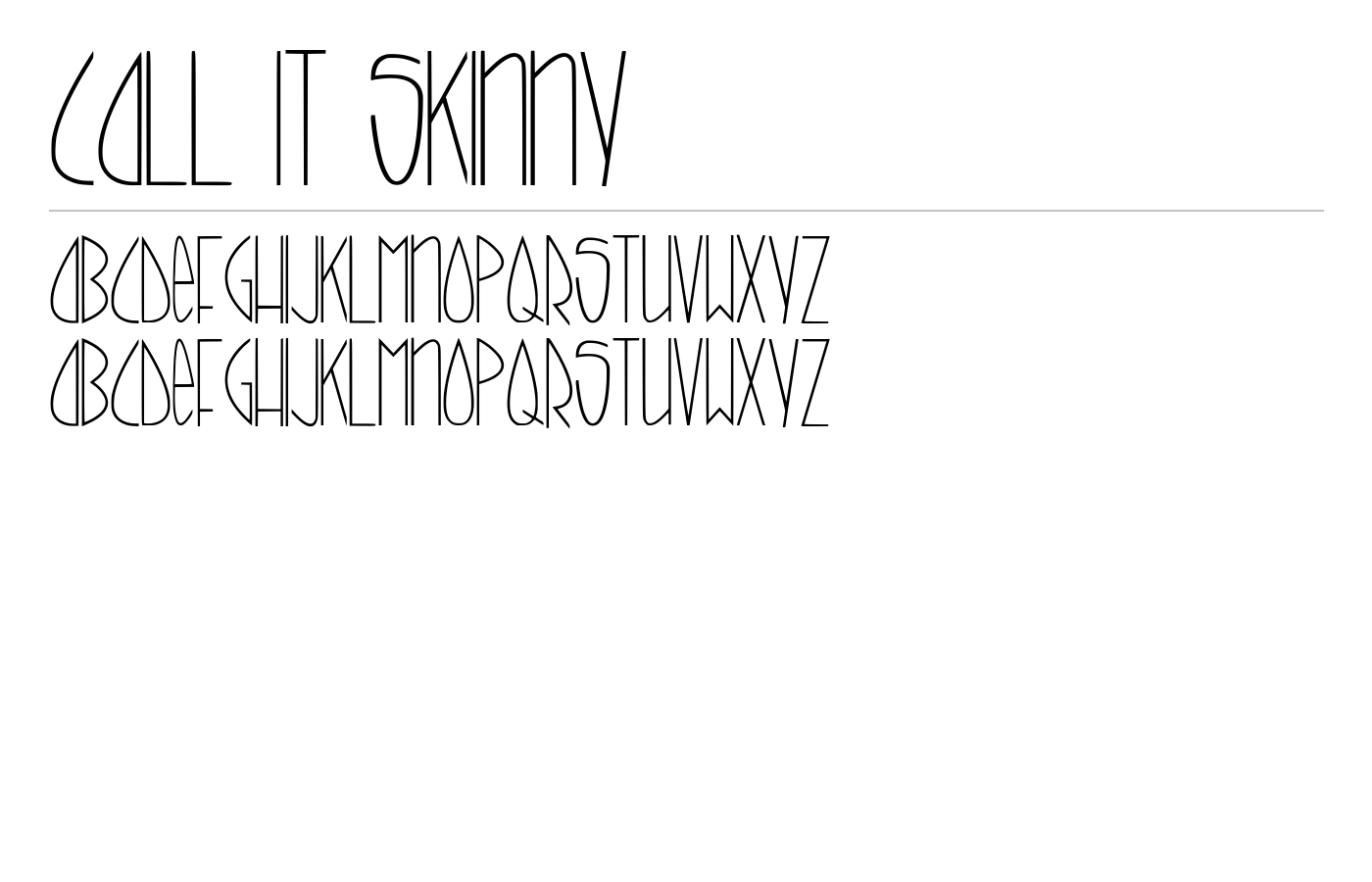
Call It Skinny is a tall, narrow sans serif font with delicate, uniform strokes that create a modern and minimalist look. Its thin lines and geometric letterforms give it an elegant yet quirky character, making it ideal for stylish headlines, logos, and creative branding projects seeking a distinct and contemporary feel. This font works well where space is limited, and a sleek, artistic impression is desired.
call it skinny Font
About call it skinny Font